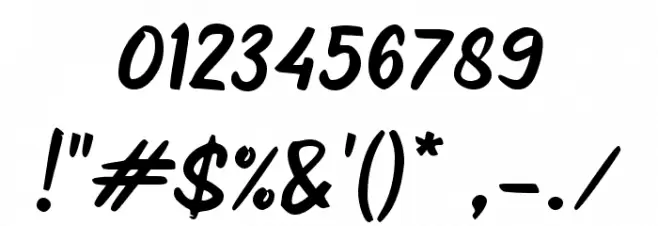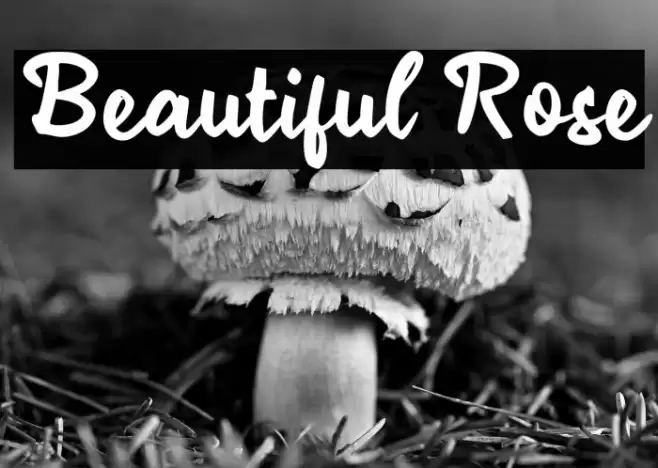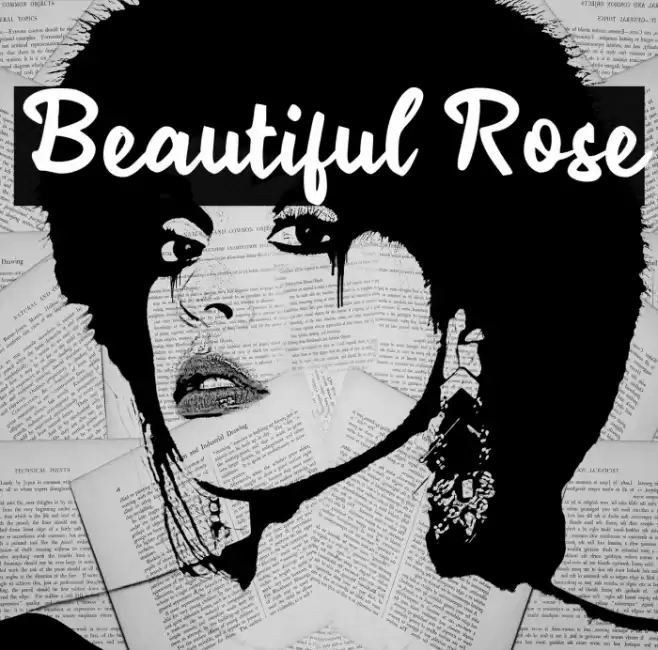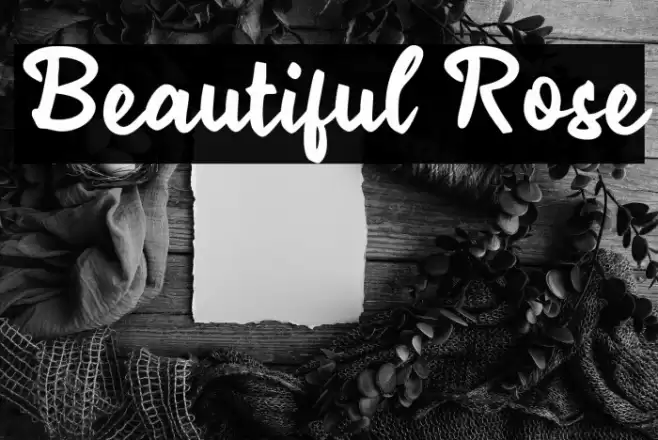
Beautiful Rose Font
Beautiful Rose Description
This font features a flowing, cursive style that exudes elegance and charm. The letters are interconnected, creating a seamless and fluid appearance. The uppercase characters are bold and slightly slanted, adding a dynamic feel, while the lowercase letters maintain a consistent flow with smooth curves and loops. The numerals are clear and easy to read, matching the overall aesthetic. Special characters are well-integrated, maintaining the same stylistic elements. This font is perfect for projects that require a touch of sophistication and creativity.
| Overall Style | Elegant |
| Use Case | Logos, Invitations, Decorative text |
| Proposed Projects | Ideal for wedding invitations, greeting cards, branding, and logo design. |